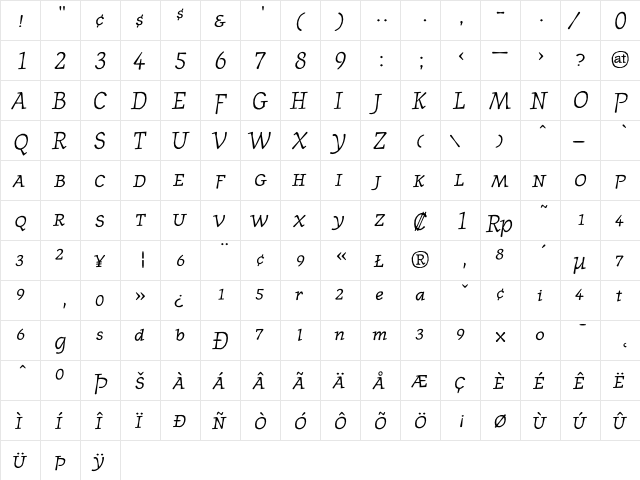
JournalItalicSmallCaps Regular
Design Context for JournalItalicSmallCaps Typeface
JournalItalicSmallCaps takes a measured approach to typography — its balanced proportions and neutral character make it a reliable workhorse for both digital and print work. Its italic angle brings a sense of urgency and motion to the letterforms.
Pro Tip: Try JournalItalicSmallCaps for annotation and caption copy alongside an upright companion — the contrast in angle creates a dynamic but ordered typographic system.